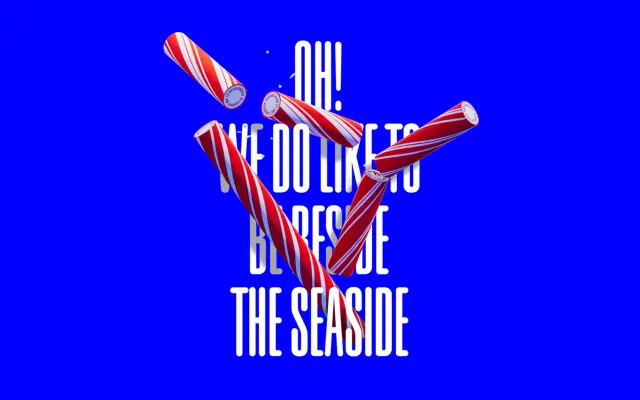
F37 Britain Condensed
The condensed display cut in the F37 Britain collection, drawn with Regular, Oblique and Backslanted variants for poster and packaging work.
A condensed display sans that sits within F37 Britain, a seven-family collection rooted in British vernacular signage. Three styles cover an upright Regular, an Oblique and a Backslanted cut, all narrow enough for stacked posters, packaging strips and mastheads. Pairs naturally with the other Britain families when you want a coordinated typographic system with a deliberately British character.
F37 classify F37 Britain Condensed as part of the F37 Britain collection, a set of seven characterful fonts that take their cue from British vernacular type. The Condensed cut is a tall, narrow display sans drawn with upright, oblique and backslanted variants.